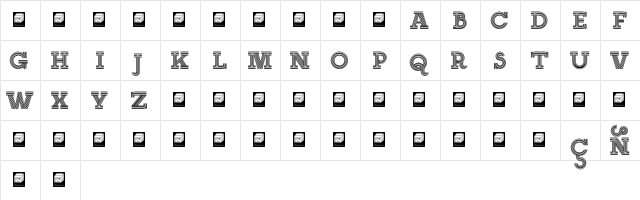
NEON SERIF Regular
Design Context for NEON SERIF Typeface
NEON SERIF channels digital-age aesthetics through its sharp, structured letterforms — ideal for brands that want to signal innovation.
Pro Tip: Use NEON SERIF in combination with a neutral sans for body text. Let it define the brand voice in headlines while keeping reading comfortable elsewhere.